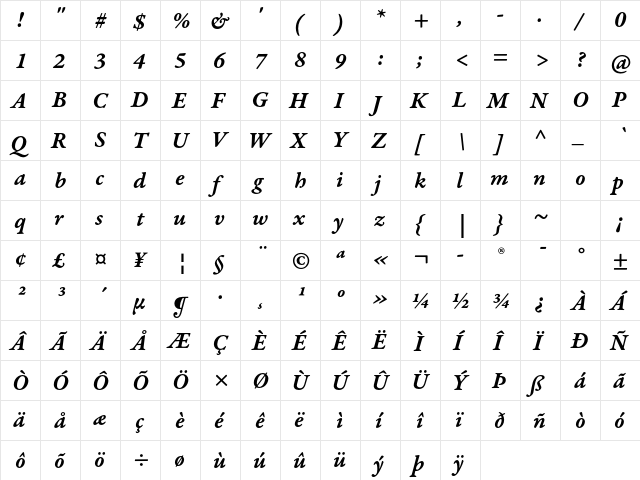
Garamond Premier Pro Semibold Italic Caption
| Designer | Robert Slimbach |
Design Context for Garamond Premier Pro Typeface
Garamond Premier Pro is a composed and adaptable typeface that performs quietly and consistently across a wide range of design contexts. The dynamic lean of this cut emphasises speed and emphasis in any layout. The heavy weight commands attention and anchors typographic hierarchies.
Pro Tip: Use Garamond Premier Pro for emphasis, pull quotes, and subheadings where its slanted energy can add rhythm to the layout.